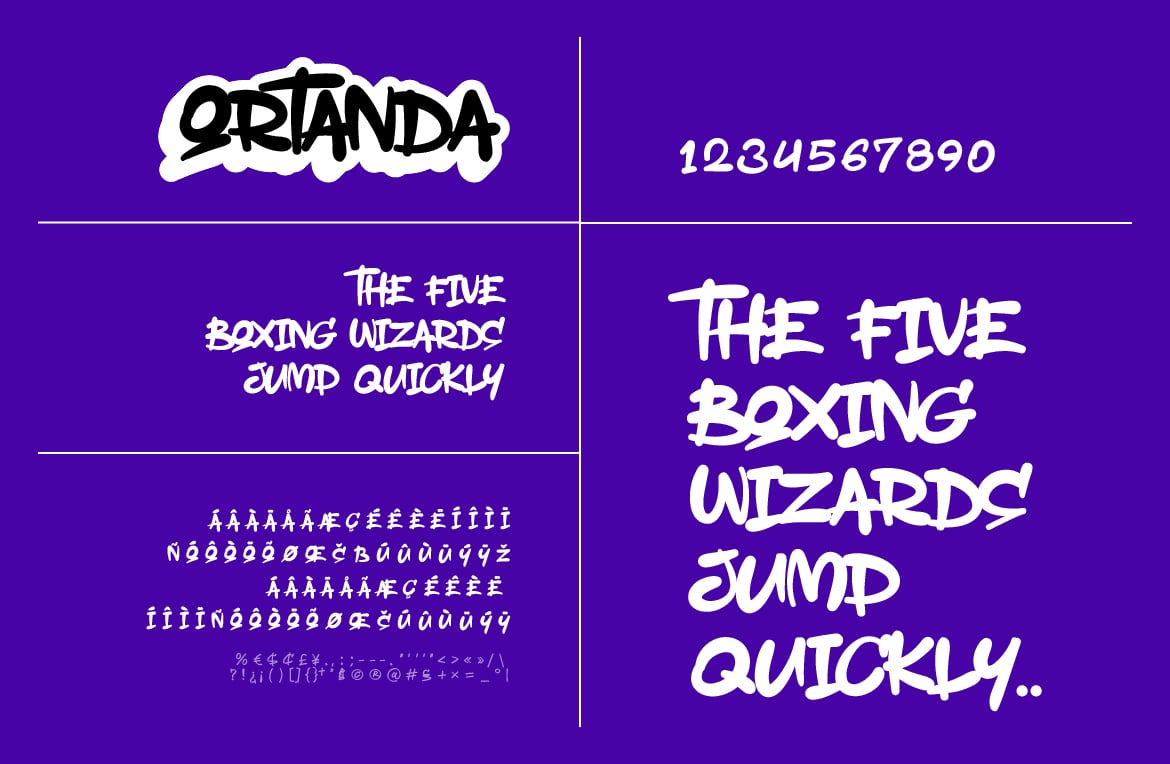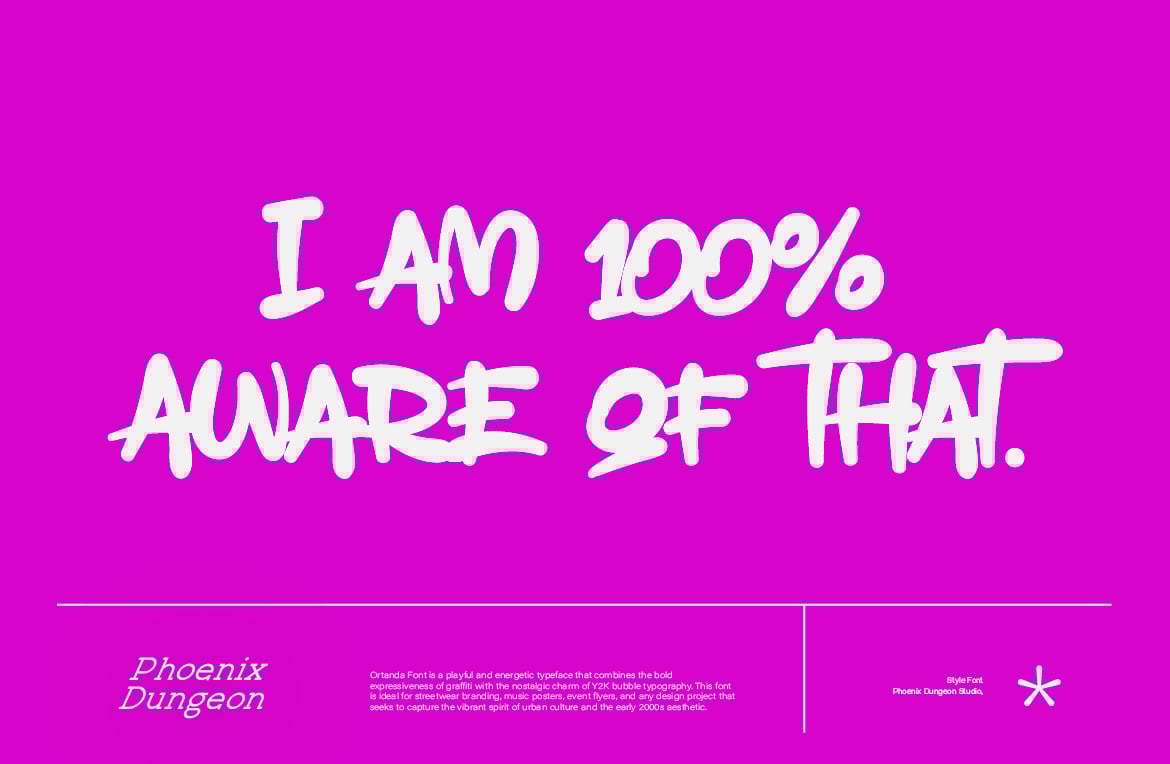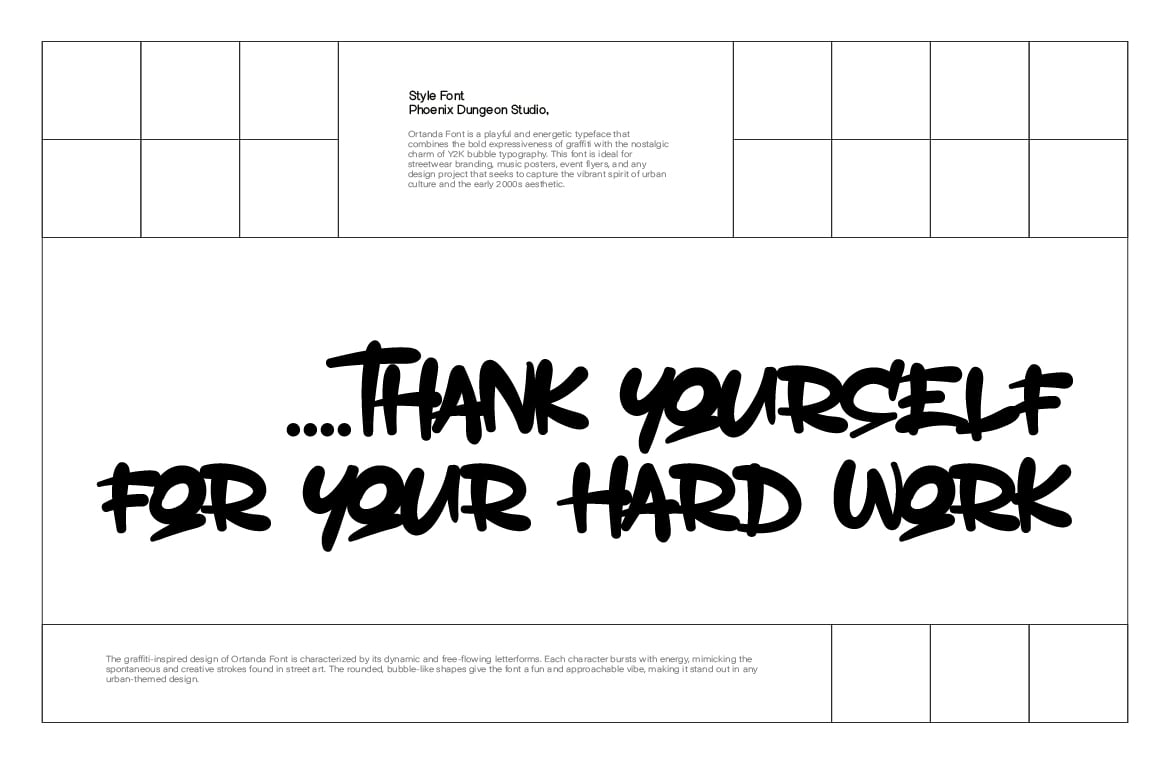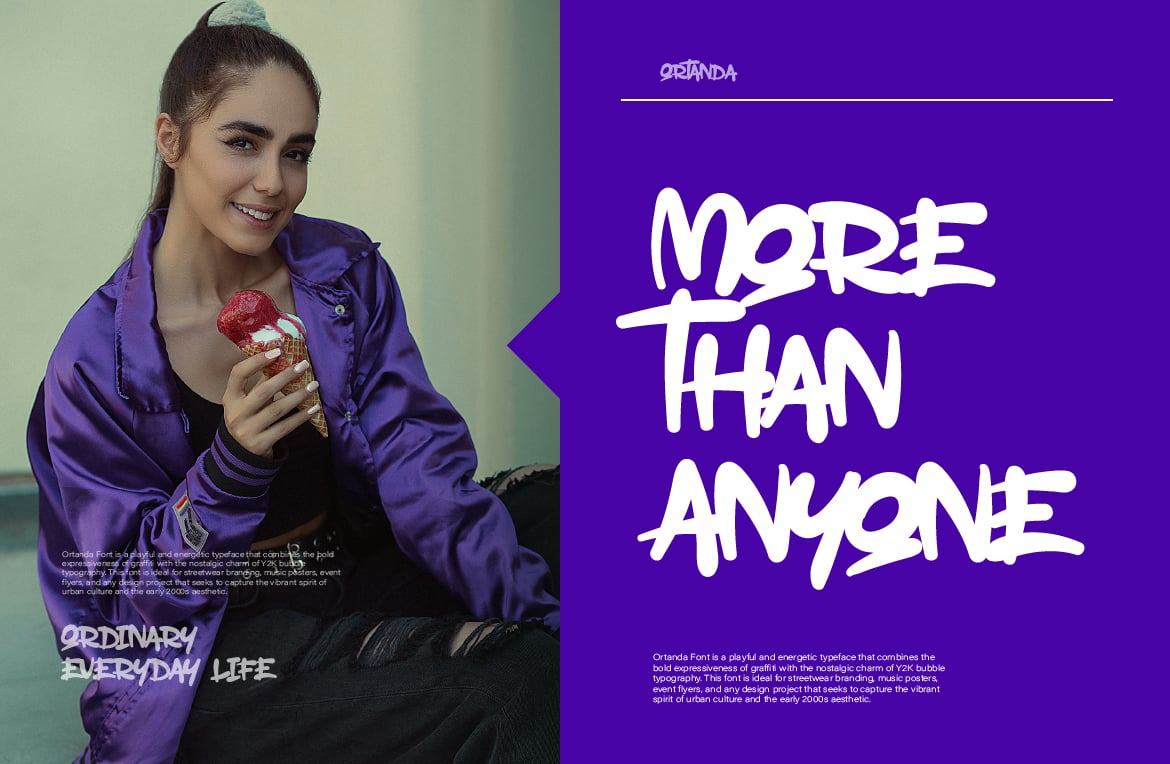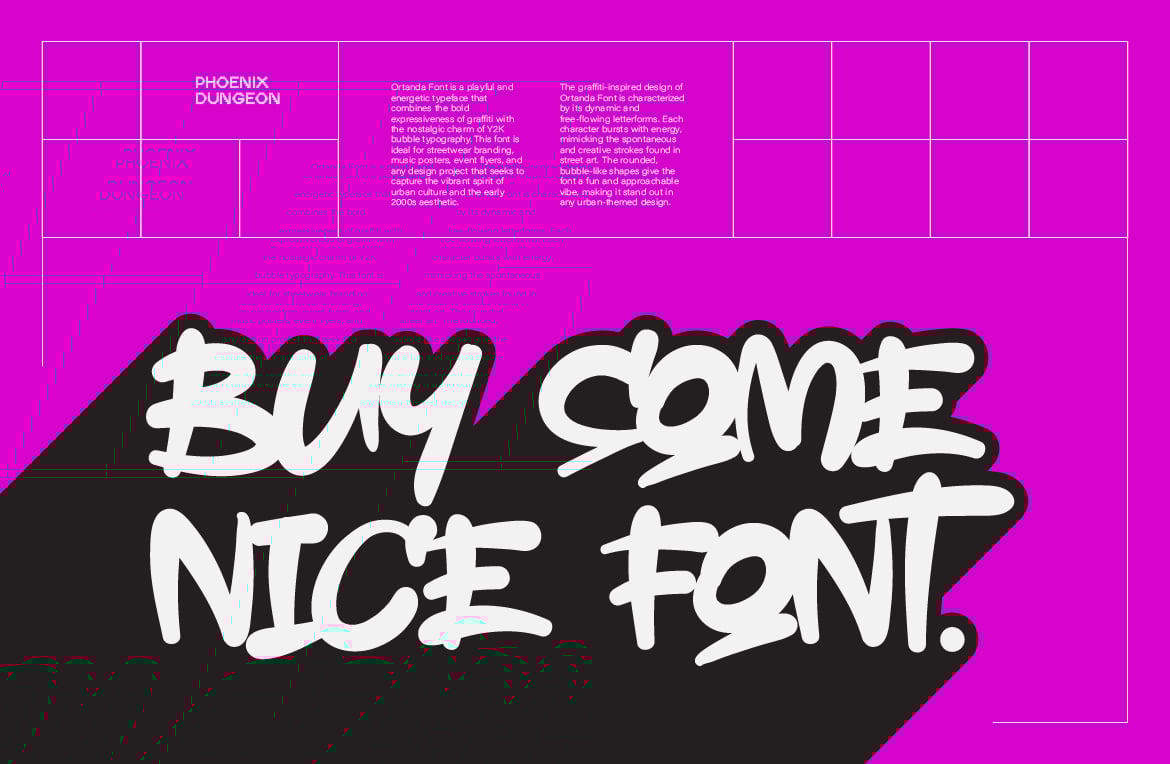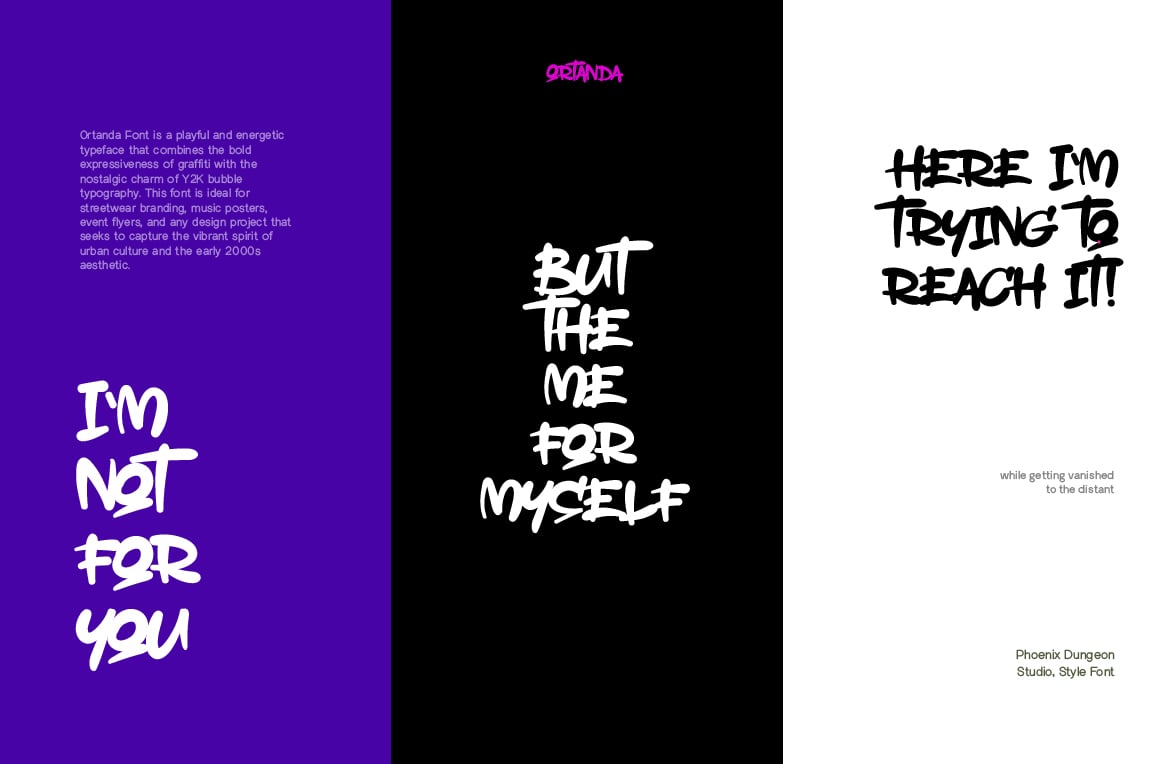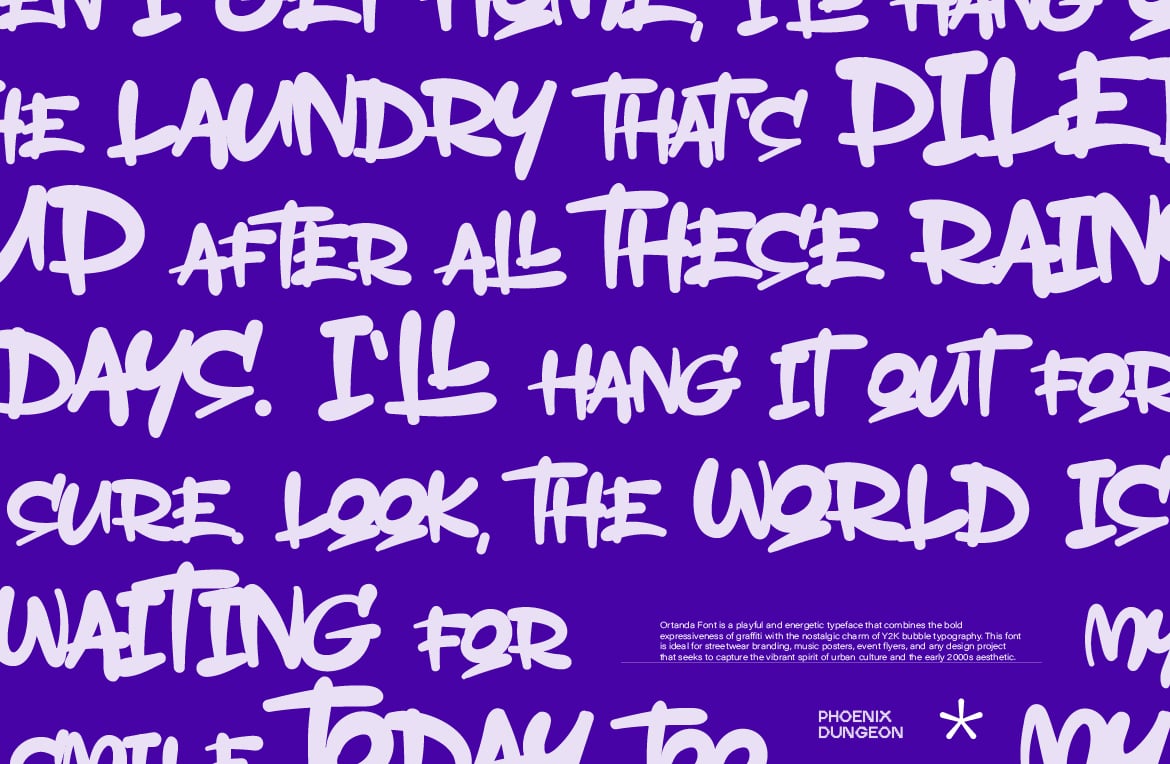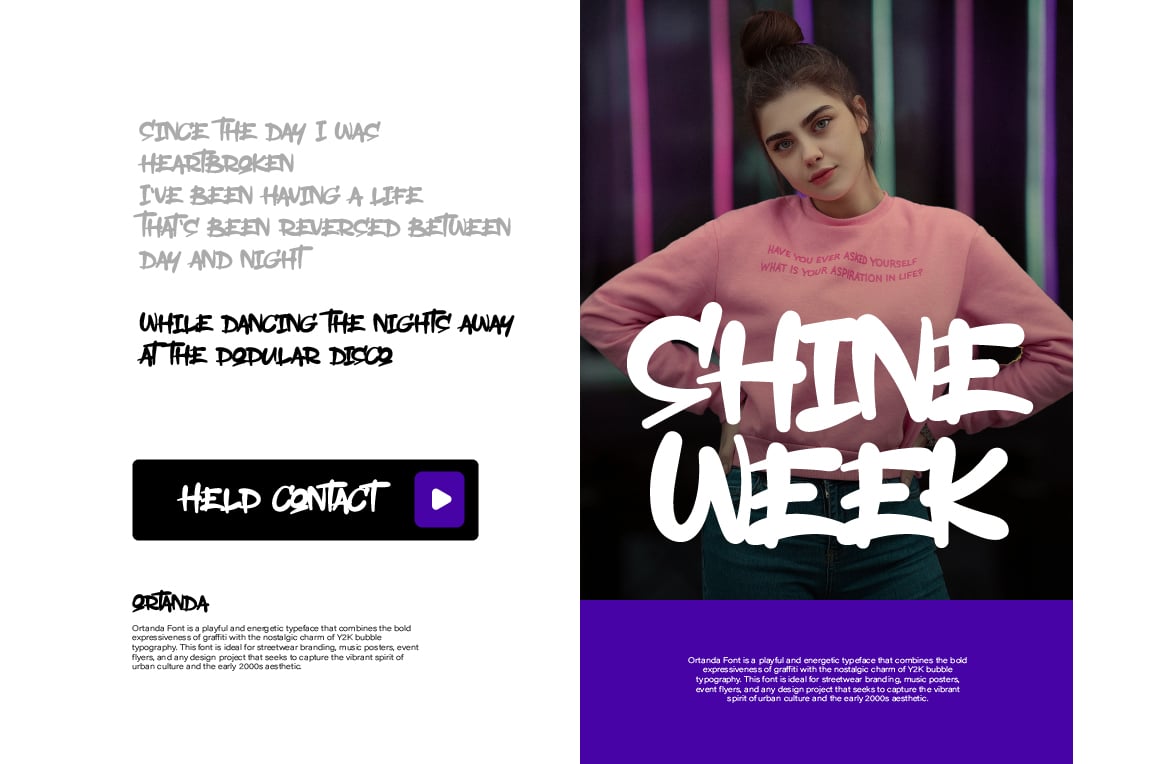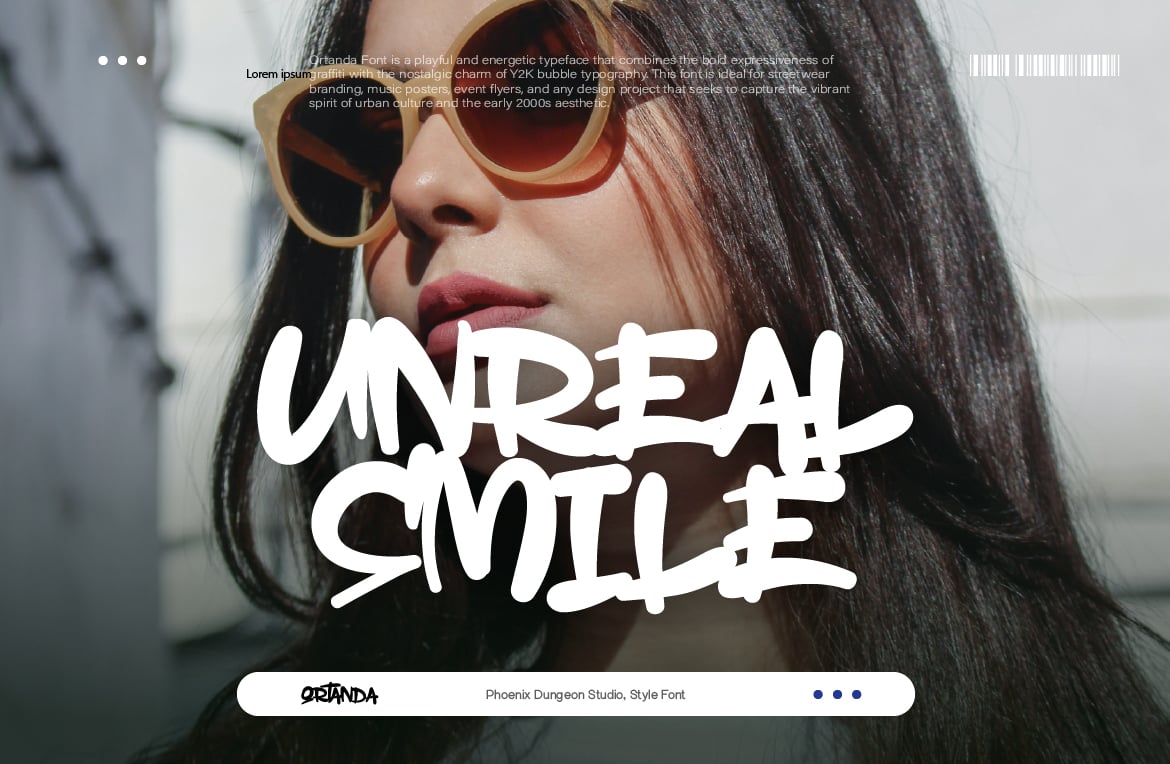
Ortanda Font
Ortanda Font is a playful and energetic typeface that combines the bold expressiveness of graffiti with the nostalgic charm of Y2K bubble typography. This font is ideal for streetwear branding, music posters, event flyers, and any design project that seeks to capture the vibrant spirit of urban culture and the early 2000s aesthetic.